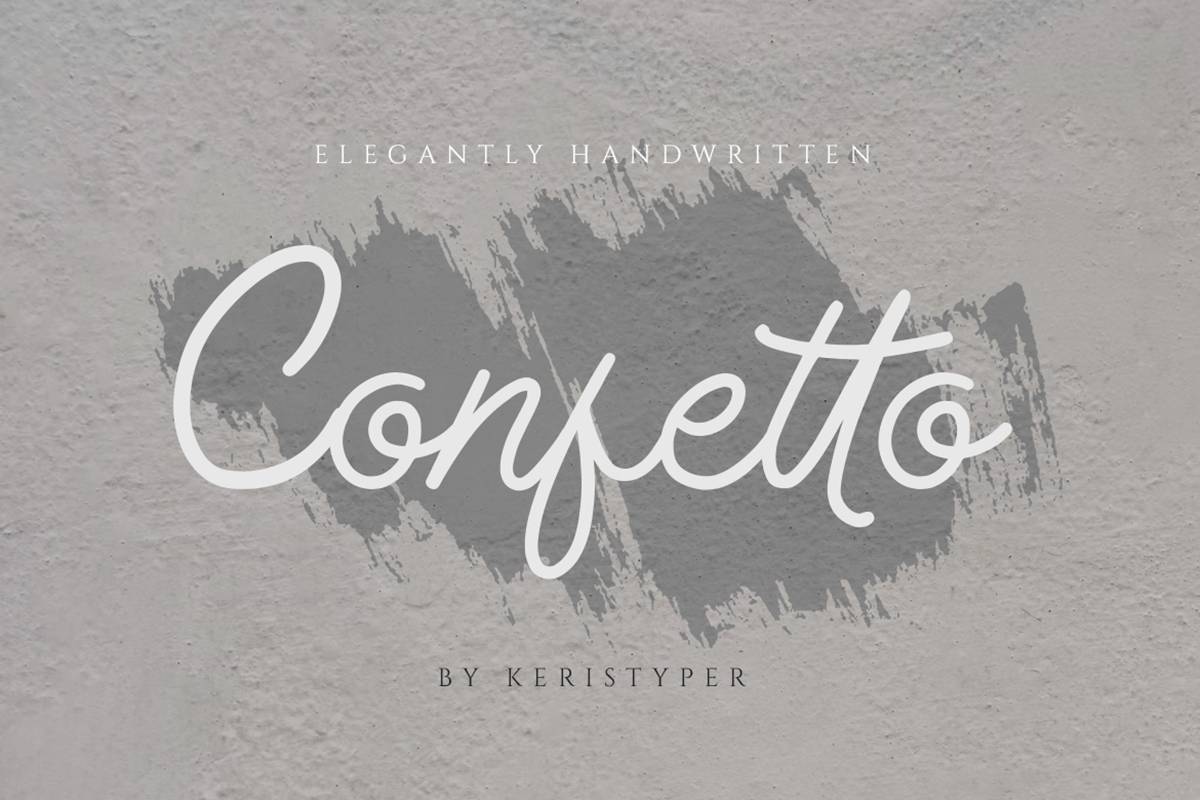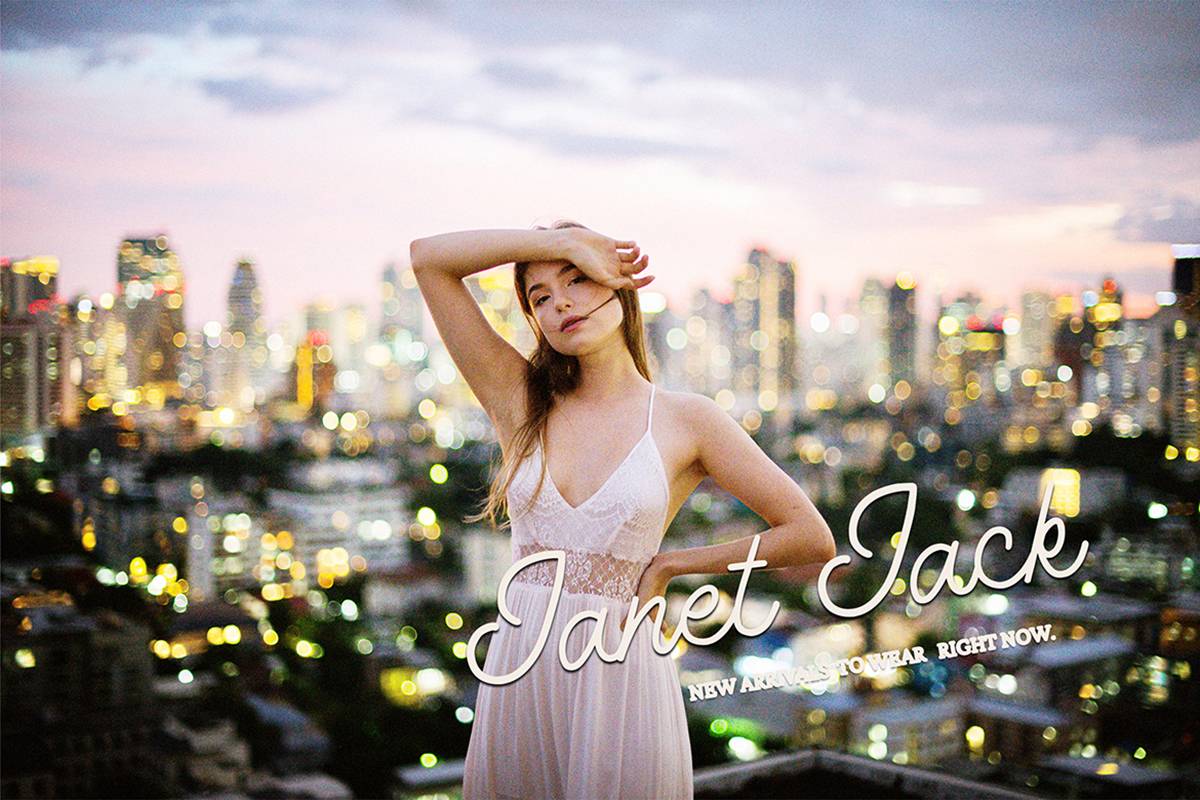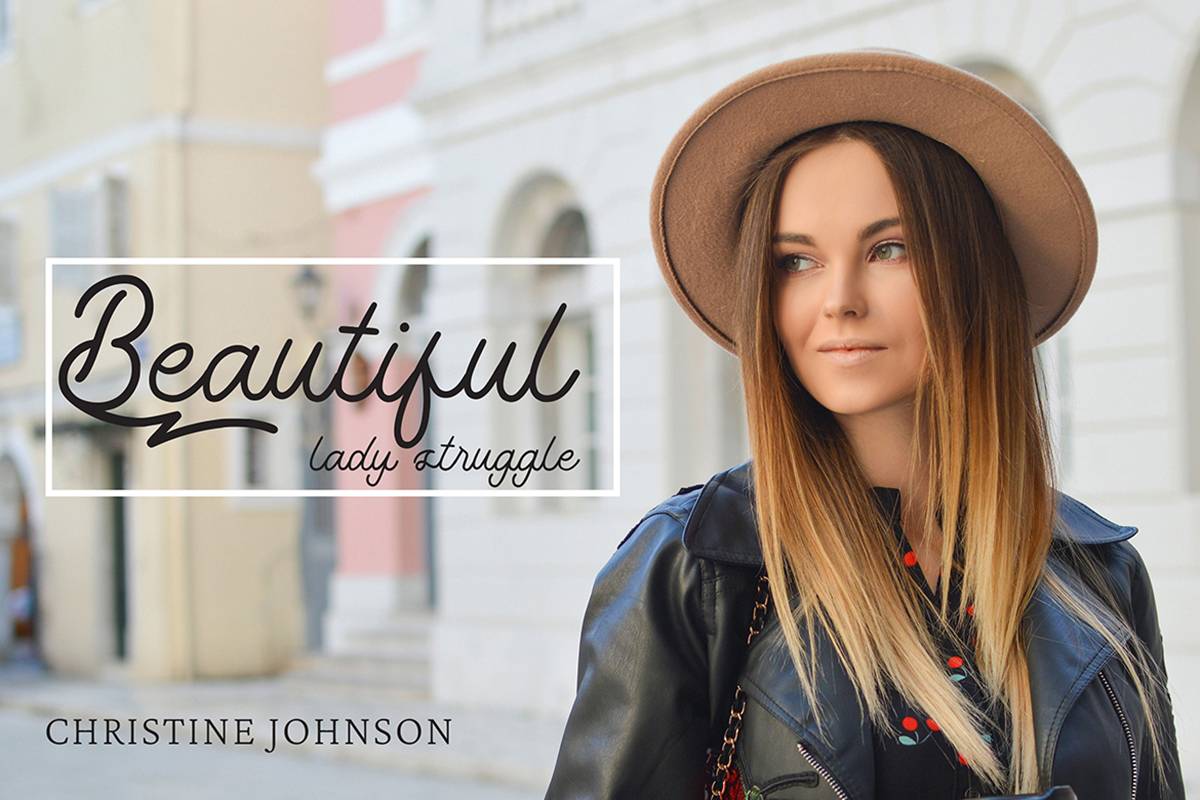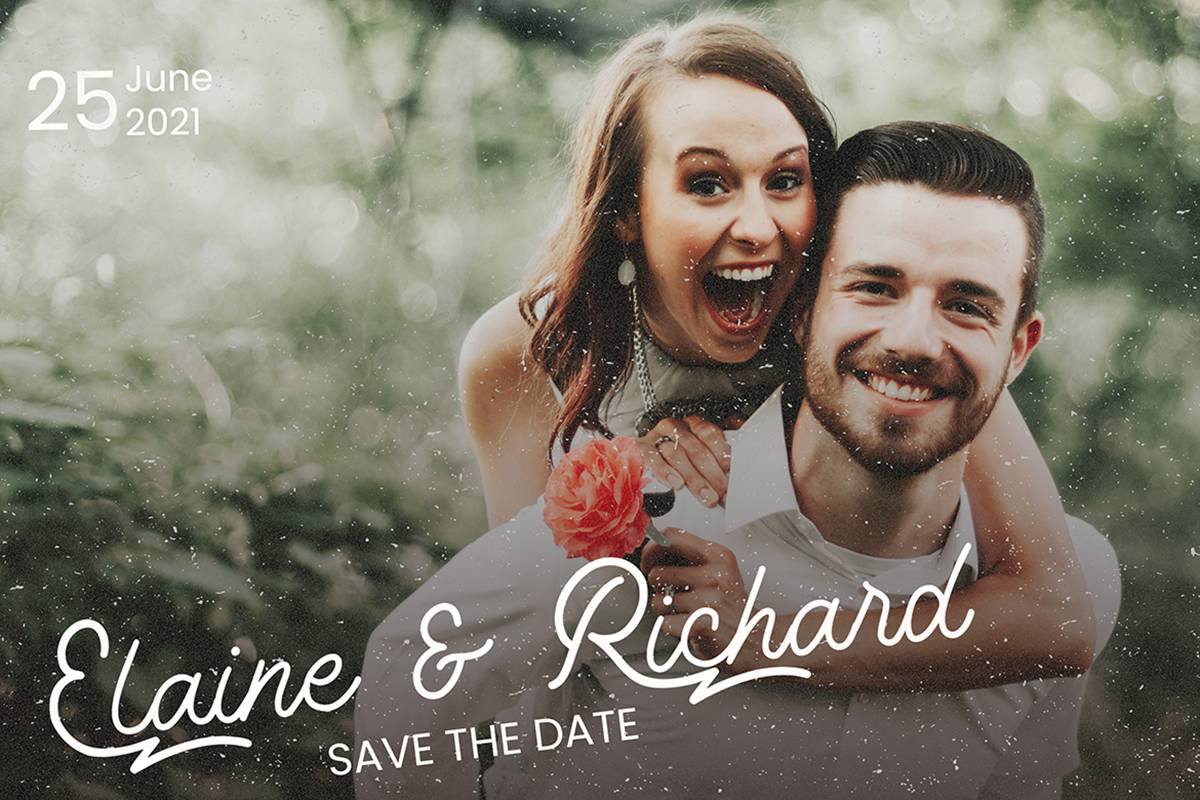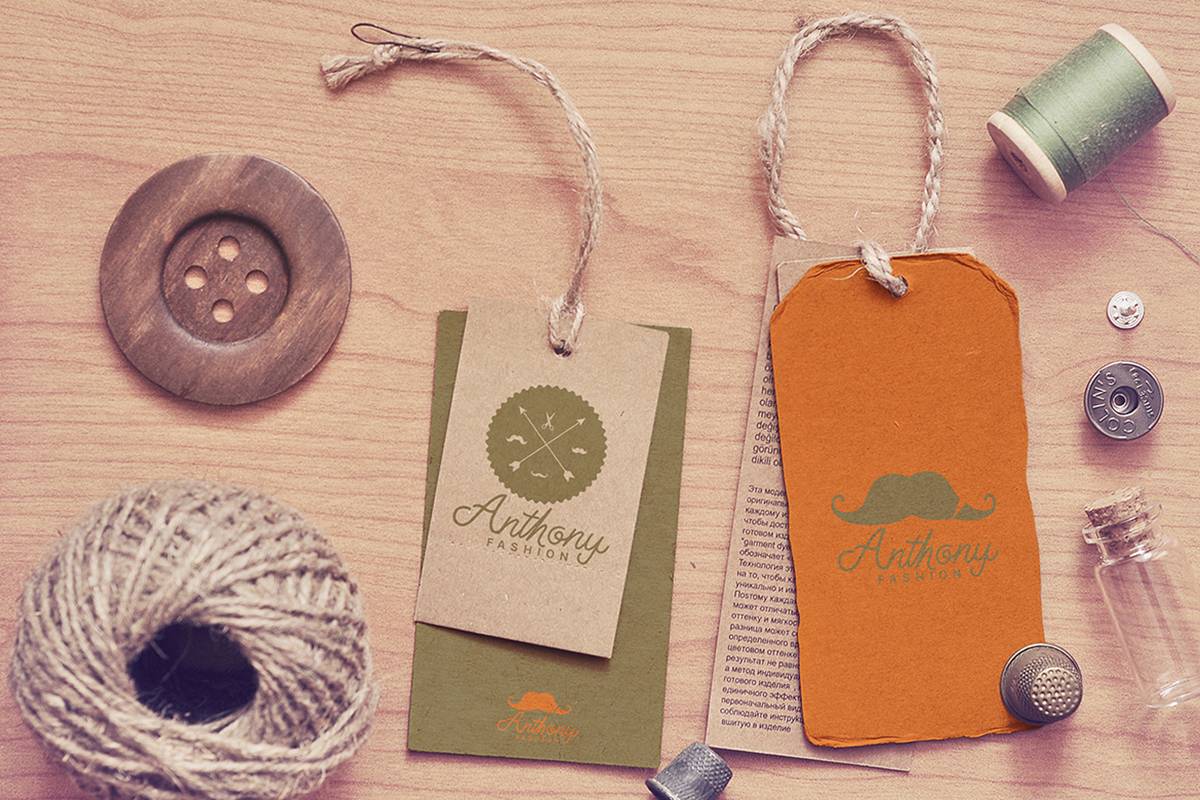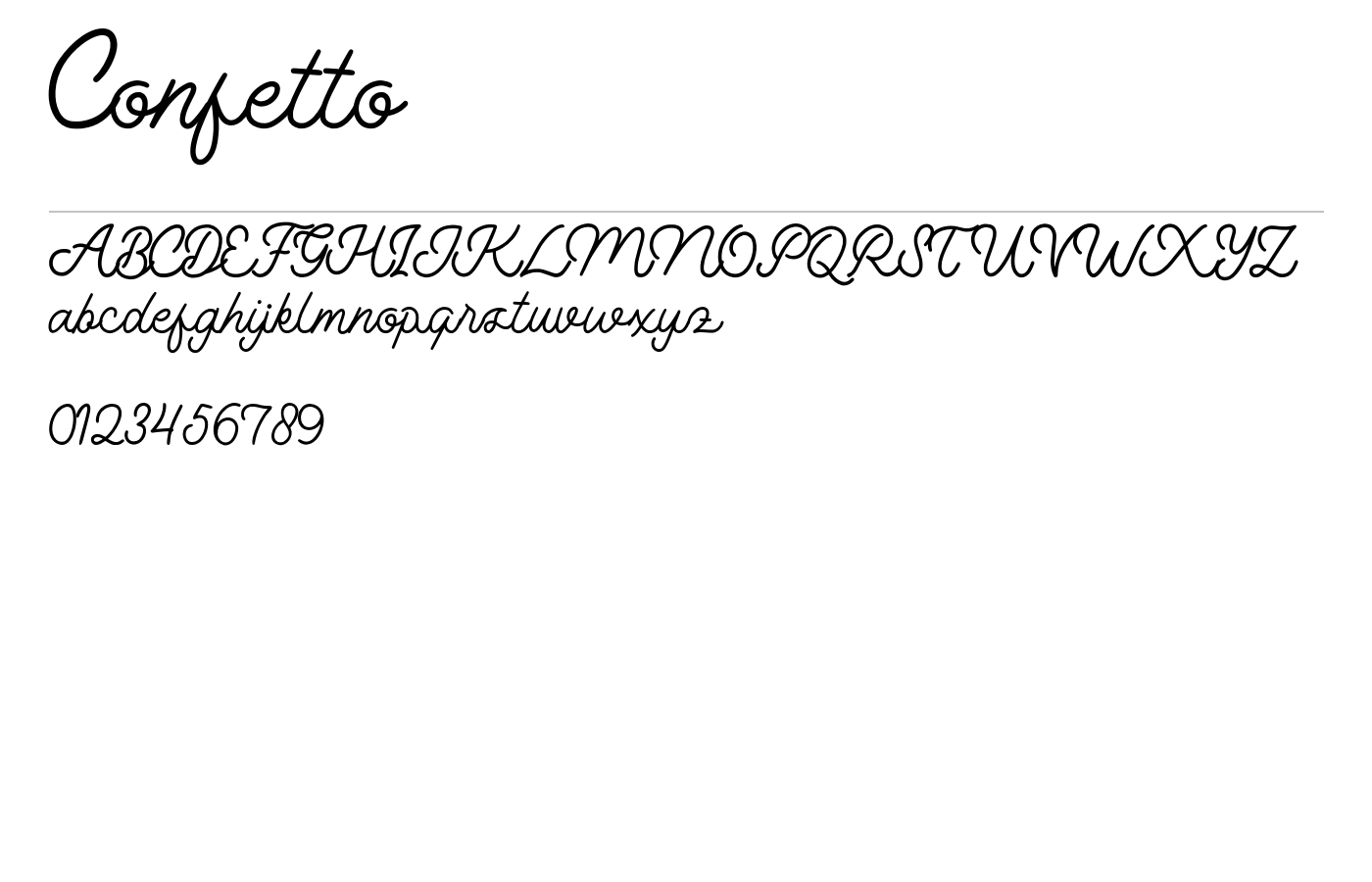
Confetto is a lively and elegant script font with a smooth, flowing style that mimics natural handwriting. Its thin, consistent strokes and rounded letterforms give it a friendly and approachable personality, making it perfect for invitations, branding, and creative projects that need a personal, charming touch. This font works best in headlines, logos, and decorative text where warmth and sophistication are desired.
| Font family | Confetto Font |
| Designer | Tezar Tantular |